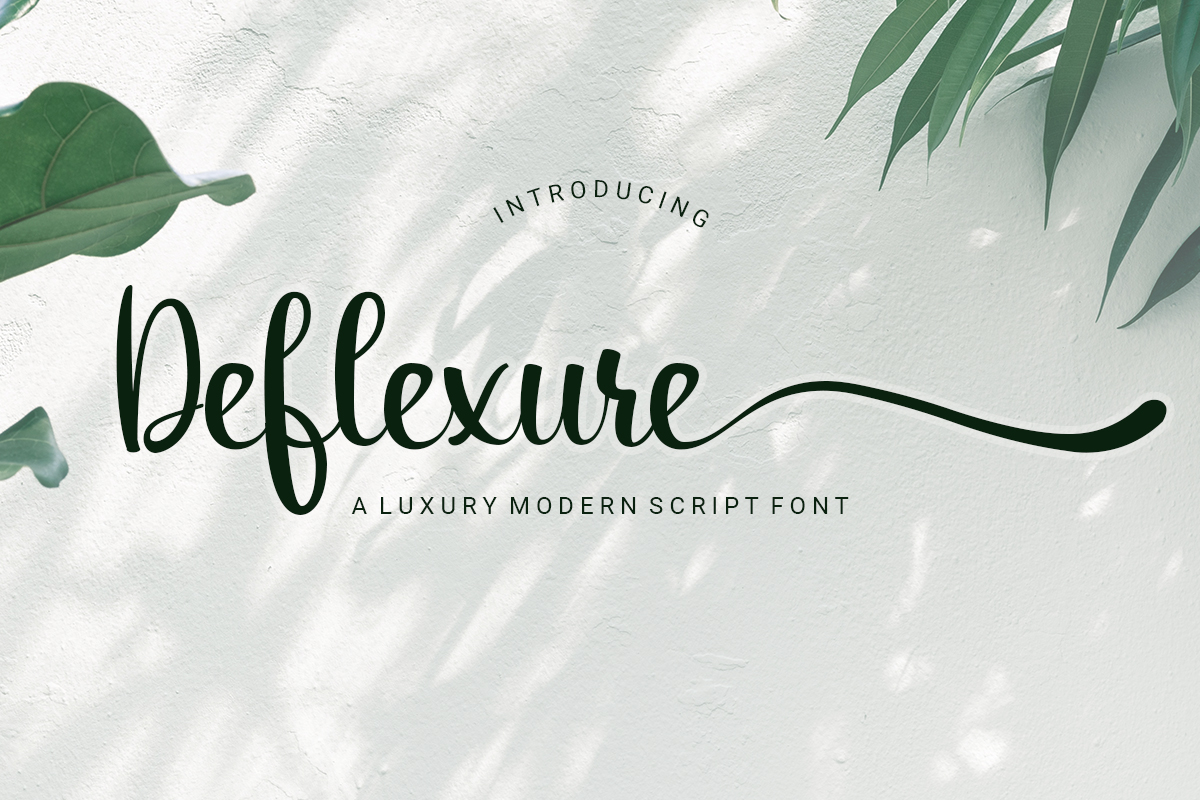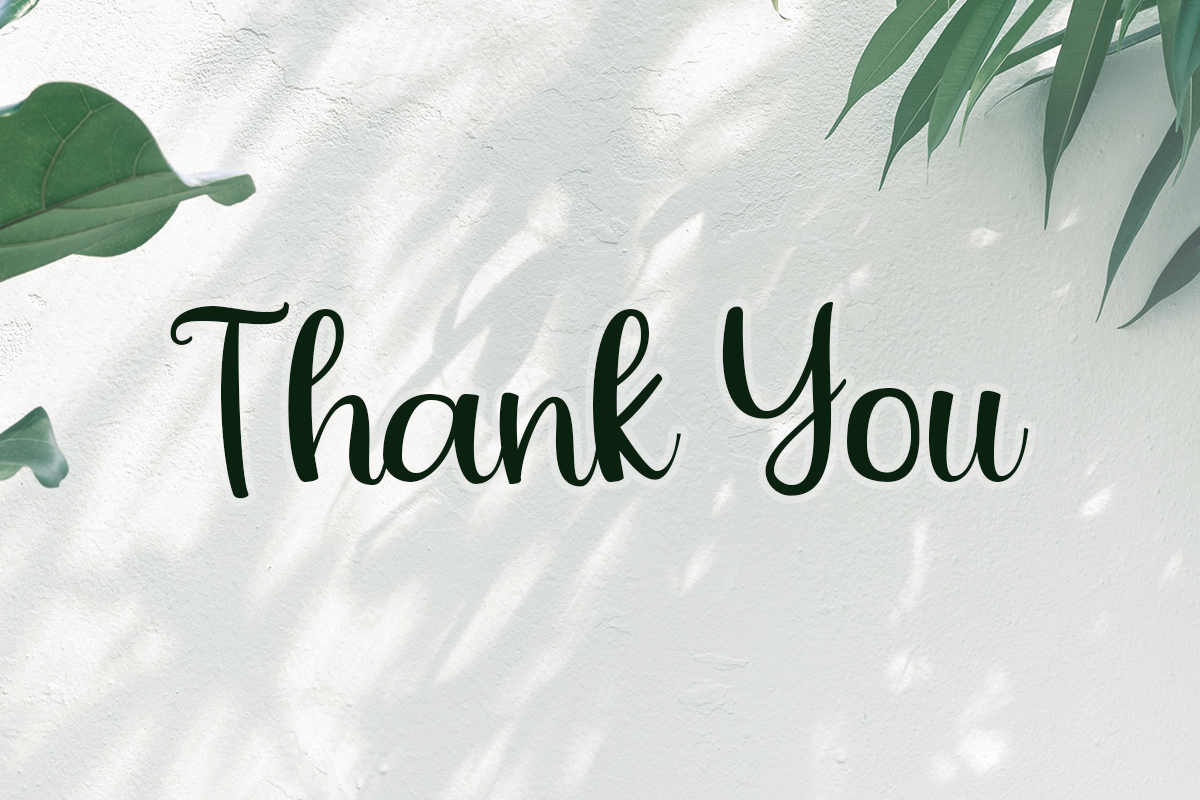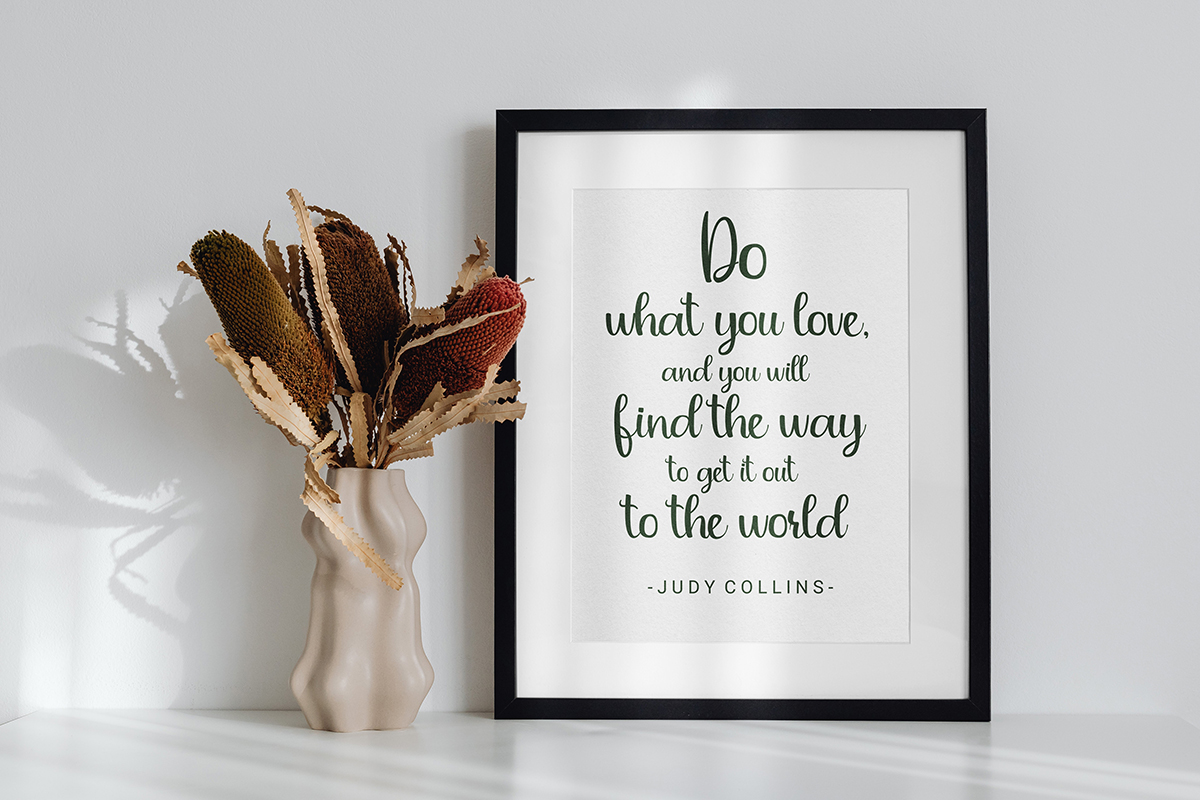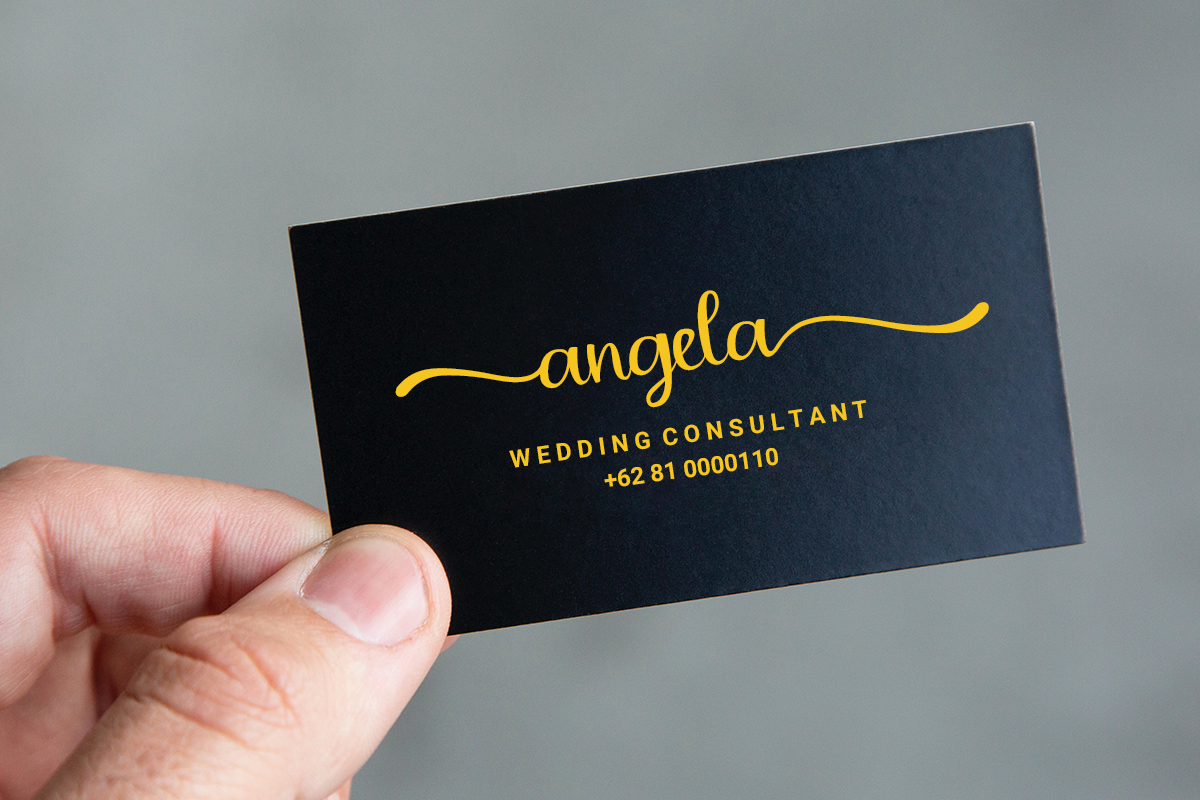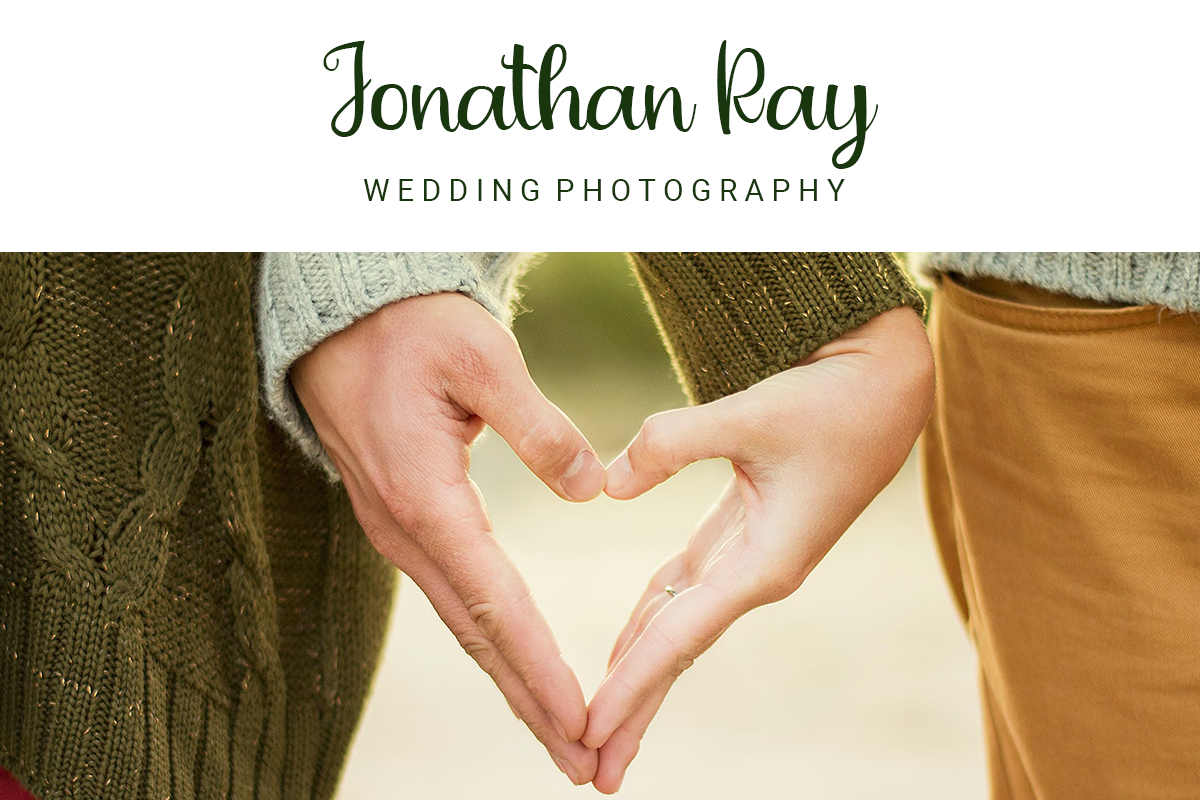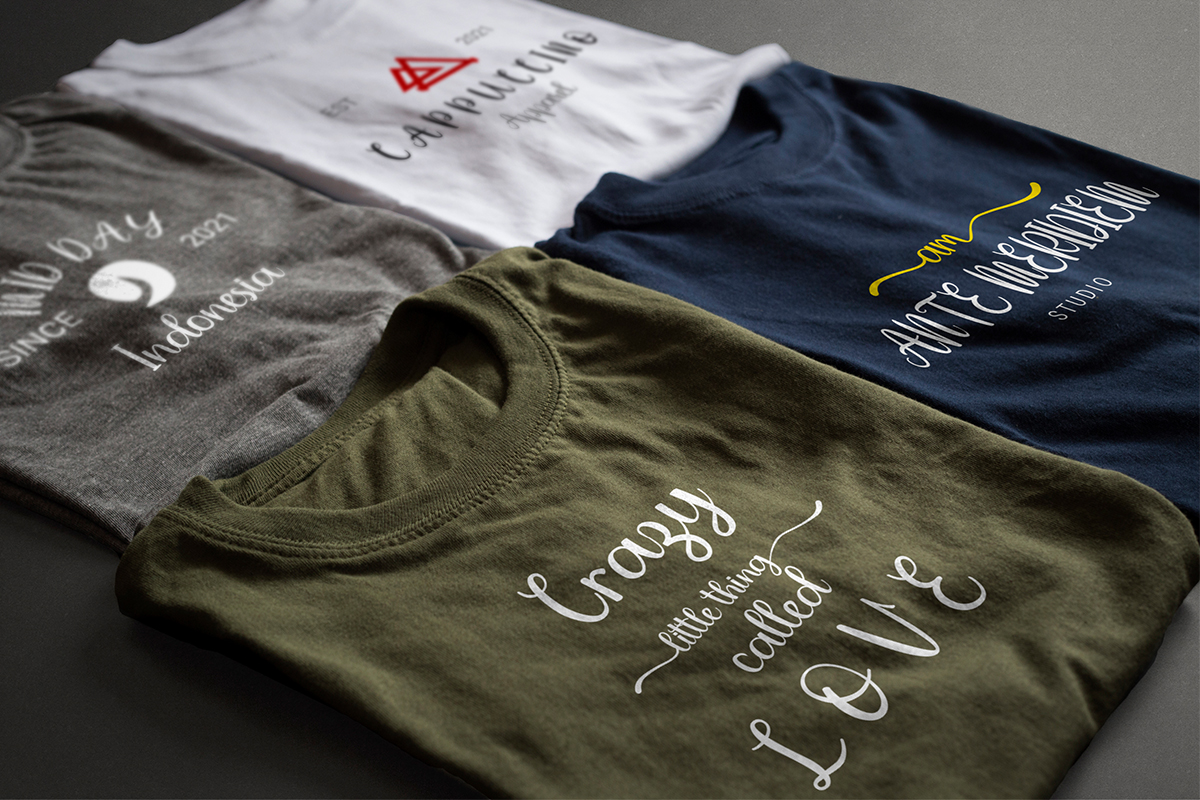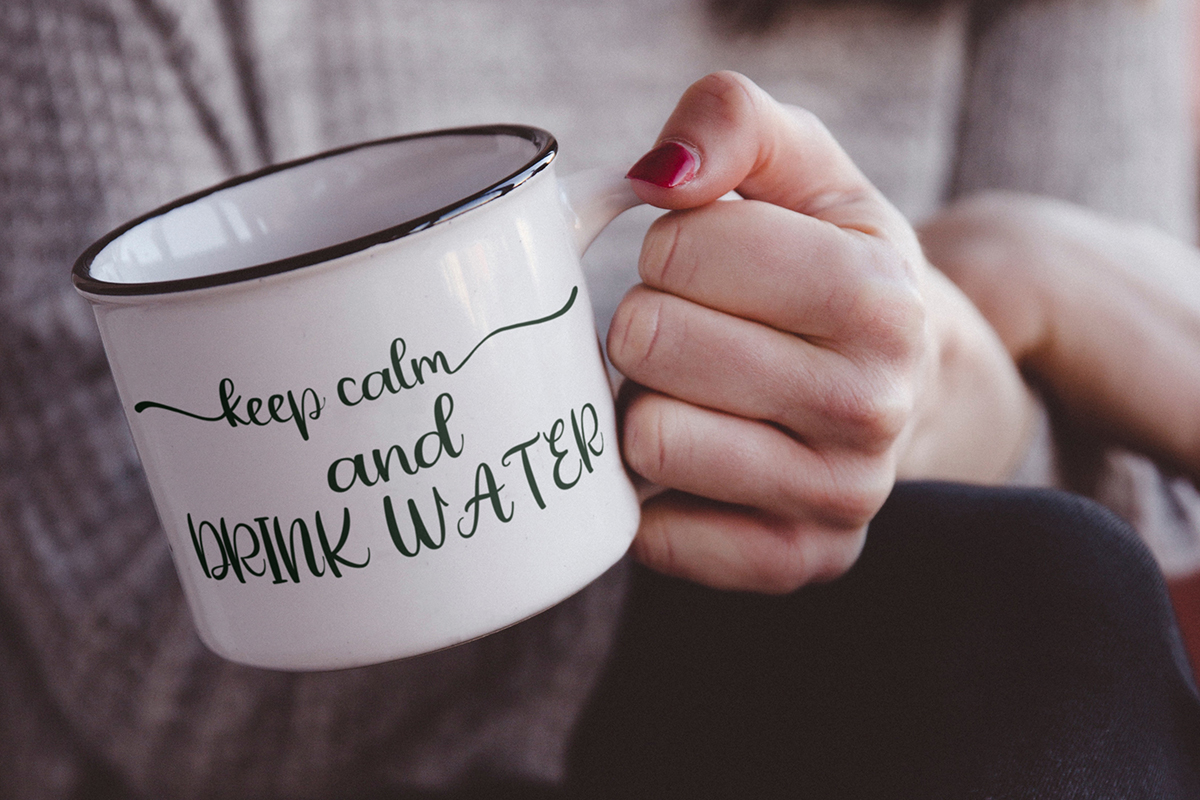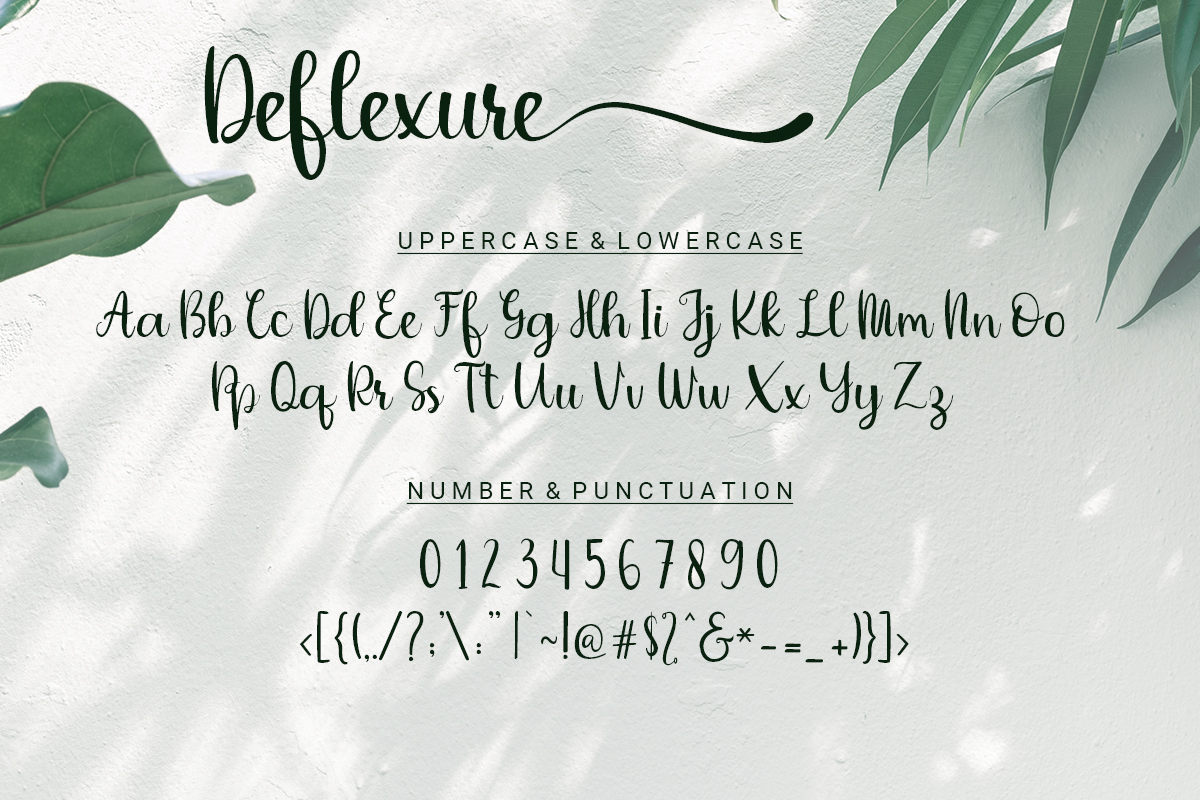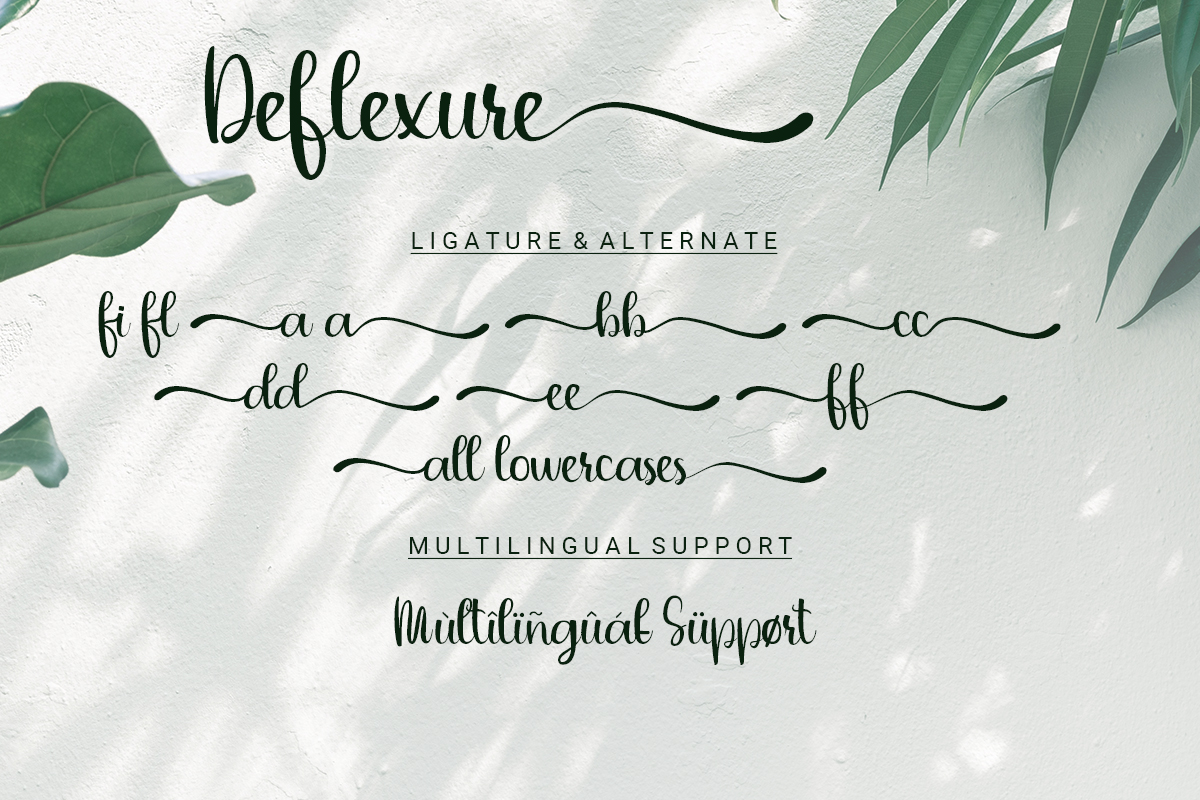
Introducing Deflexure – A Luxury Modern Script Font, created by Ony Studio. This typeface is perfect for an elegant logo, product labels, beauty products, packaging products, quotes, and so much more.
What’s Included?- All characters, Number, Punctuation
- Stylistic alternative and Ligature
- Multilingual support